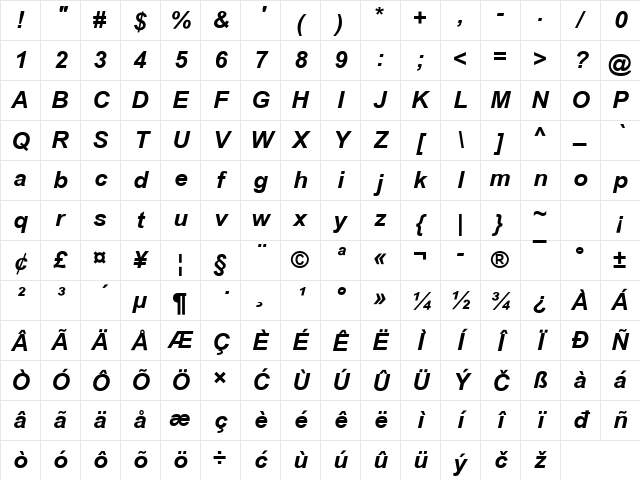
Arial YU Bold Italic Free Font
Design Context for Arial YU
Arial YU is a composed and adaptable typeface that performs quietly and consistently across a wide range of design contexts. The slanted form adds forward momentum and visual energy. Its bold stroke weight gives it real presence on the page.
Pro Tip: Use Arial YU for emphasis, pull quotes, and subheadings where its slanted energy can add rhythm to the layout.